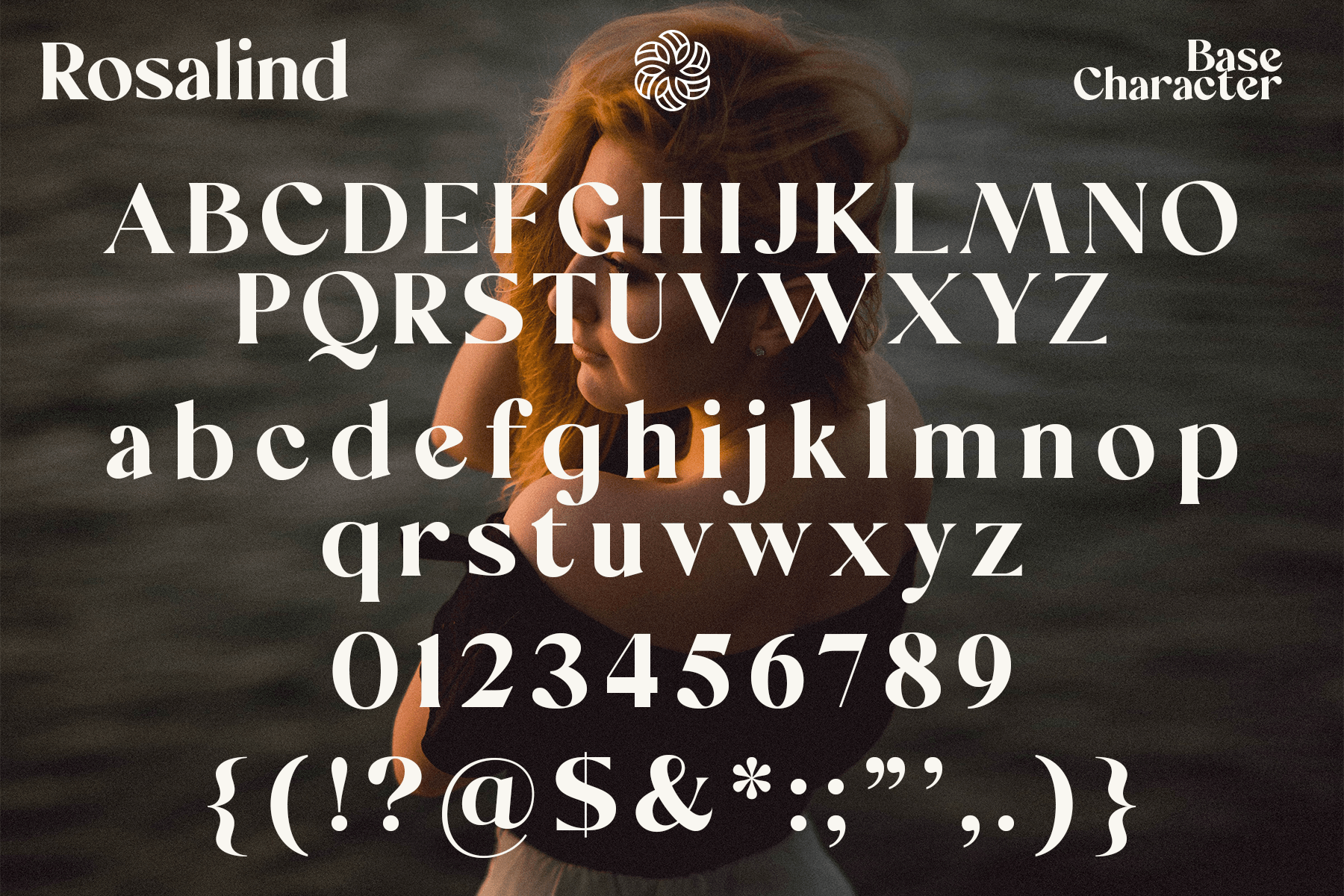
Rosalind – Aesthetic Retro Serif Font
Say hello to new serif font, Rosalind!
Introducing Rosalind, a stunning modern retro serif font that effortlessly combines aesthetic charm with captivating alternate characters. This typeface falls into the category of modern retro serif fonts and is designed to bring a touch of nostalgia and elegance to your design projects.
What sets Rosalind apart are its intriguing alternate characters. These alternates offer a wealth of creative possibilities, allowing you to experiment with various letter combinations and create unique and eye-catching typographic compositions. Each alternate has been thoughtfully designed to ensure visual coherence and seamless integration within the font.
Furthermore, Rosalind excels in legibility and readability, making it well-suited for a wide range of design applications. Whether you’re working on branding projects, editorial design, packaging, or any other creative endeavor that calls for a modern retro serif font, Rosalind will deliver exceptional results.